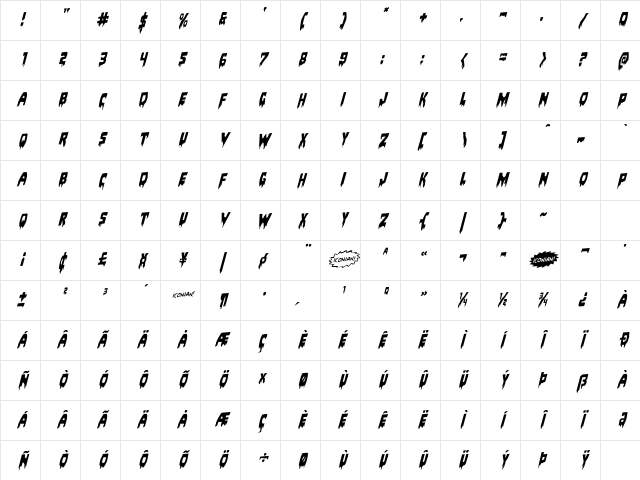
Bloodlust Rotalic Italic
Design Context for Bloodlust Rotalic
Bloodlust Rotalic carries an unsettling edge - its distorted letterforms are built to unsettle, perfectly suited to horror, Halloween, and dark creative work. The slanted form adds forward momentum and visual energy.
Font Pairing: Pair with a clean neutral sans-serif for body copy to let Bloodlust Rotalic's character lead without overwhelming the composition.
Pro Tip: Use Bloodlust Rotalic at larger display sizes for maximum impact. Consider generous tracking to let the disturbing character of each letterform breathe.